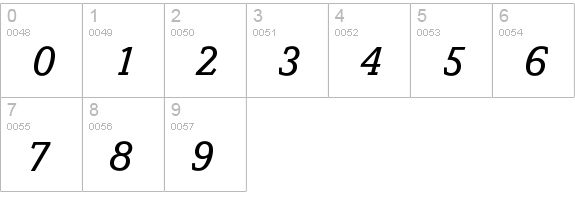
Osiris BQ Italic is a distinctive, italic variant in the Osiris typeface family \xE2\x80\x94 well suited to design and typography projects.
Osiris BQ Italic is a stunning and elegant font that exudes sophistication and style. The sleek, slanted design of the italic characters adds a touch of flair to any project or design. With its clean lines and modern aesthetic, Osiris BQ Italic is the perfect choice for adding a touch of class to your work. Best of all, Osiris BQ Italic is available for free download at FontsMarket.com. This means you can easily access this beautiful font and incorporate it into your projects without any cost. Whether you're designing a website, creating a logo, or working on a print project, Osiris BQ Italic is sure to elevate your design and make a lasting impression. Download this exquisite font today and take your work to the next level.